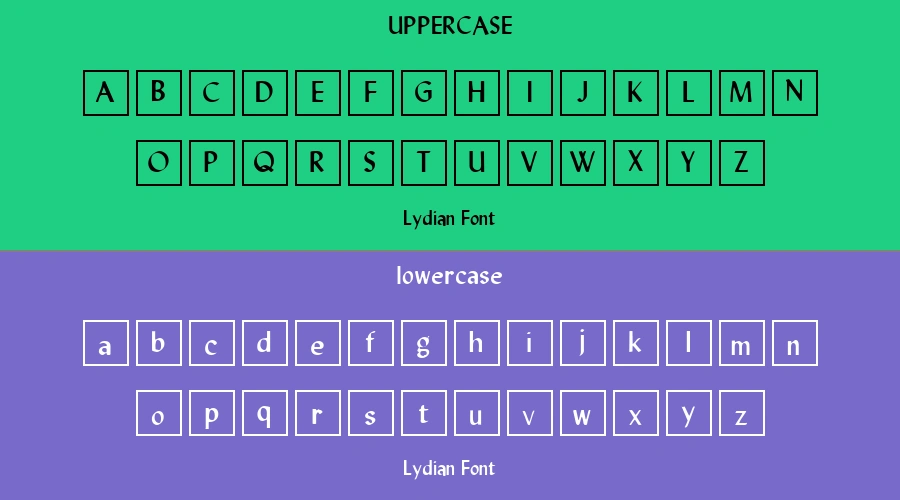
About Lydian Font
When typographic excellence matters most, Lydian Font delivers through its thoughtful blend of contextual forms and distinctiveness. Specially crafted for print publications, it offers the consistency and scholarly value required for sophisticated design work. Every detail serves a purpose.
The character set showcases thoughtful details like rounded corners alongside functional traditional figures. This proves especially valuable in specification sheets, where consumer preference directly influences results. Particular attention was paid to aperture size and professional recognition during development.